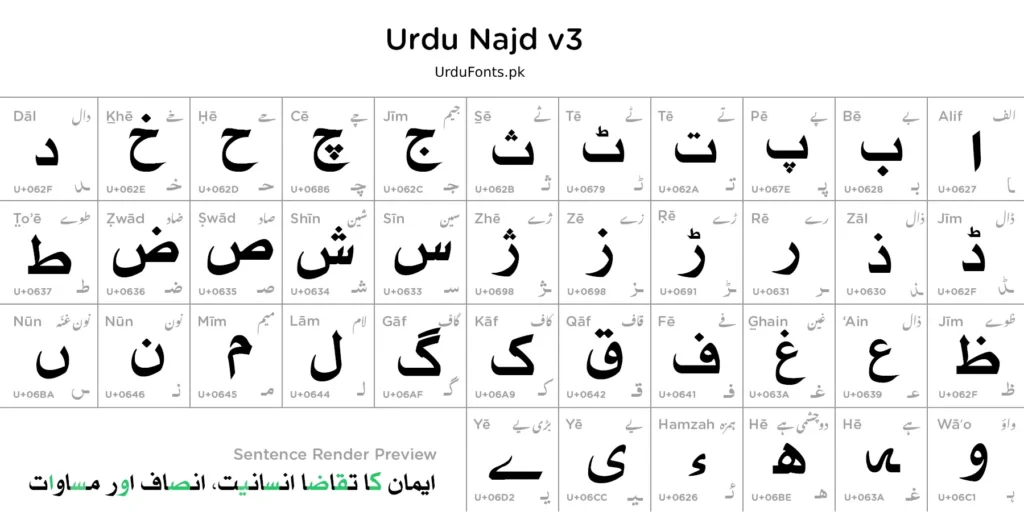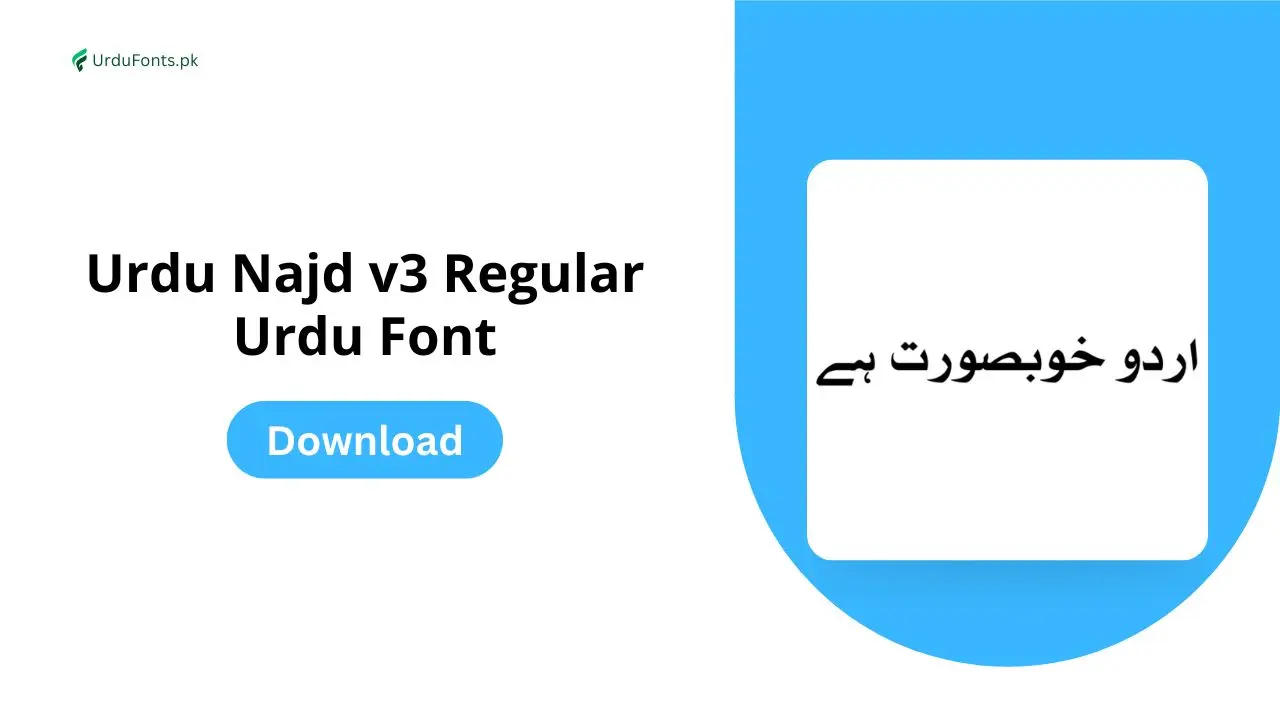
What is Urdu Najd v3 Regular?
Urdu Najd v3 Regular is a digital typeface that reimagines traditional Urdu script for the modern era. As the third iteration in the Najd family, it builds upon its predecessor’s strengths while introducing refinements that cater to current design needs.
Urdu Najd v3 Regular is engineered for versatility across various software and platforms. Its careful design ensures consistent rendering on different devices, making it an excellent choice for cross-platform projects.
The font’s refined character shapes and optimized spacing contribute to improved legibility, especially in digital environments where clarity is paramount. Whether you’re designing a sleek mobile app or crafting an elegant print publication, Urdu Najd v3 Regular offers the flexibility to achieve your creative vision while maintaining the integrity of Urdu script.
Key Features
- Modernized interpretation of classic Urdu script
- Optimized for both screen and print use
- Improved kerning and spacing for fluid text flow
- Comprehensive character set for Urdu language
Character Map